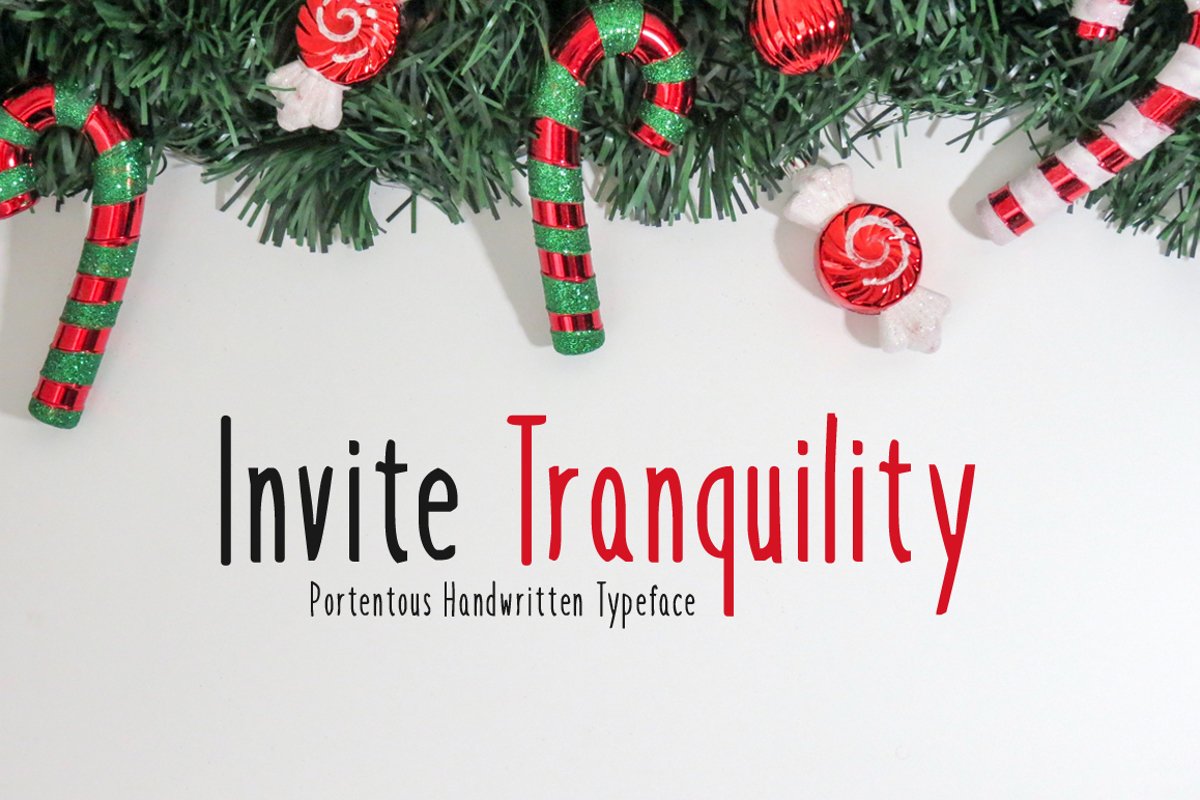
Introducing Invite Tranquility!
Invite Tranquility is a brand new handwritten font. Invite Tranquility is perfectly suited for stationery, logos, t-shirt, paper, print design, website header, photo frame, flyer, music cover, poster, image slider and much more.